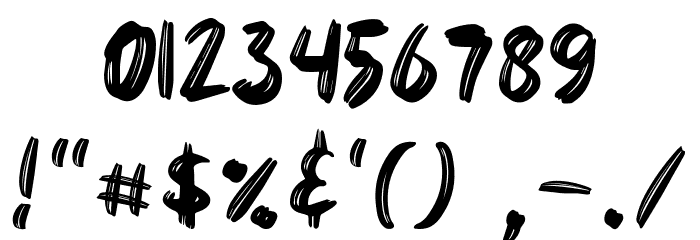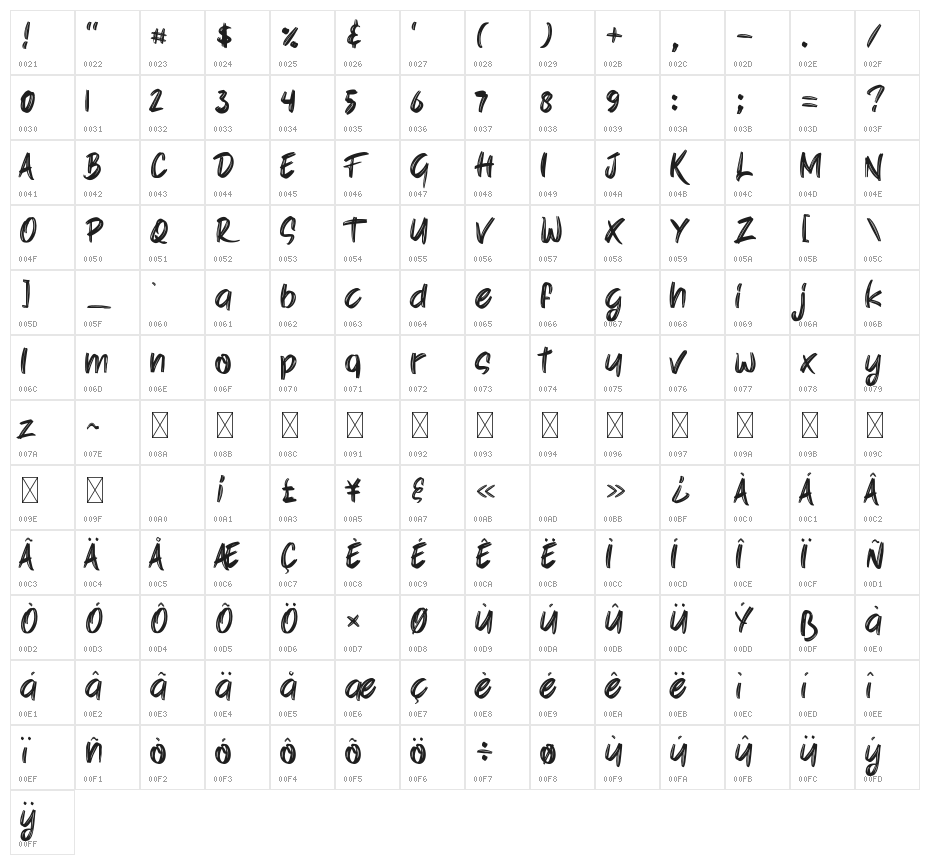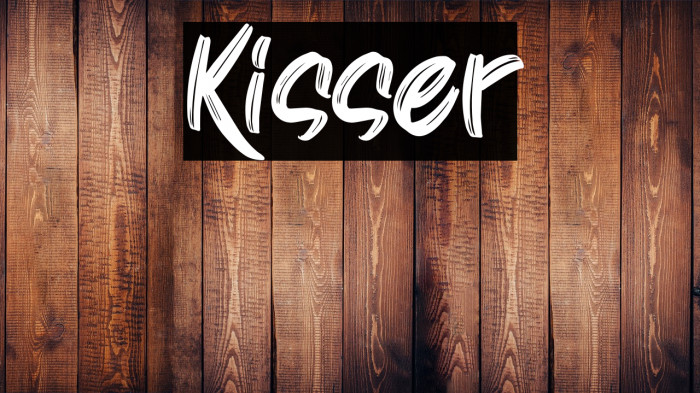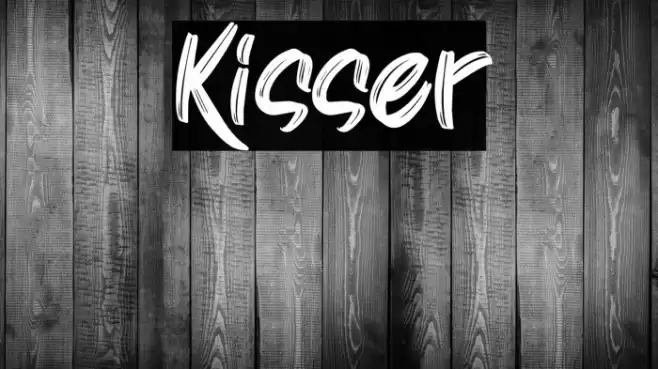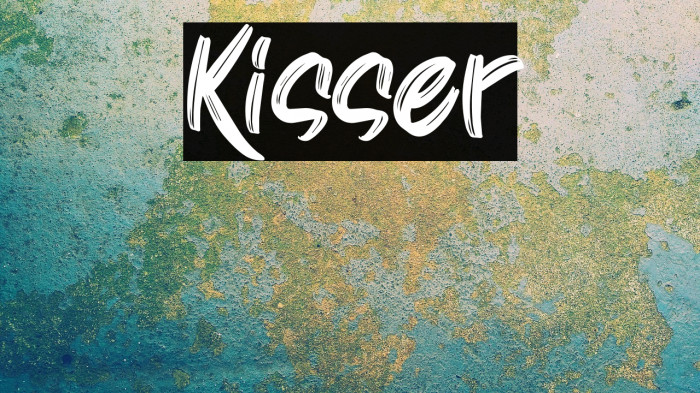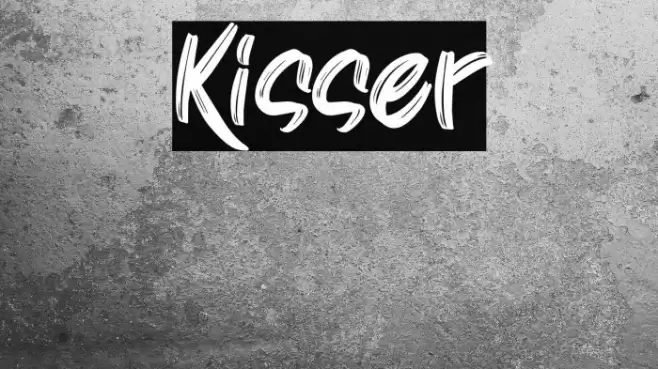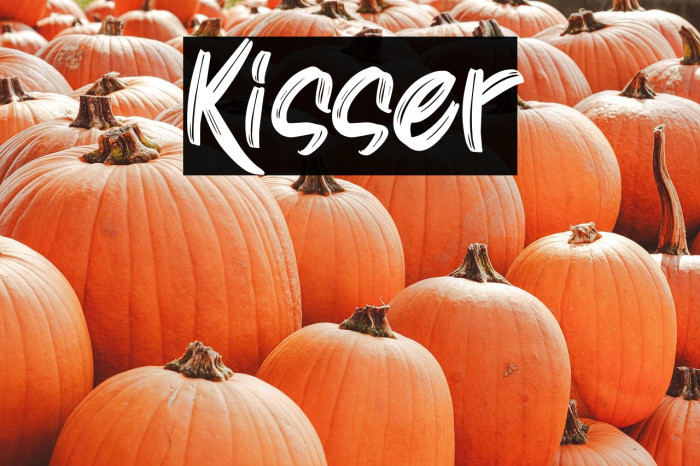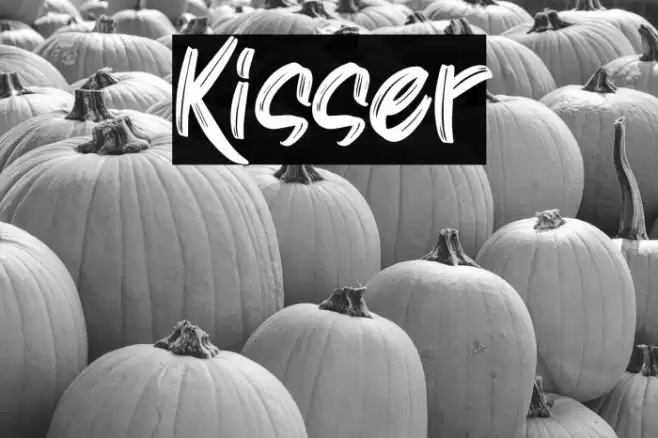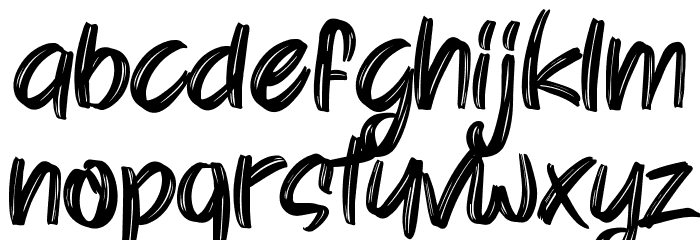
Kisser Font
Kisser Description
This font features a bold and dynamic handwritten style, characterized by its energetic and slightly chaotic strokes. The letters are crafted with a brush-like appearance, giving them a textured and organic feel. Each character varies in width and height, adding to the font's lively and informal nature. The uppercase and lowercase letters maintain a consistent style, while the numerals and special characters complement the overall aesthetic. This font is perfect for projects that require a personal and expressive touch, such as posters, invitations, or branding materials.
| Proposed Projects | Ideal for posters, invitations, branding, and any project needing a personal touch. |